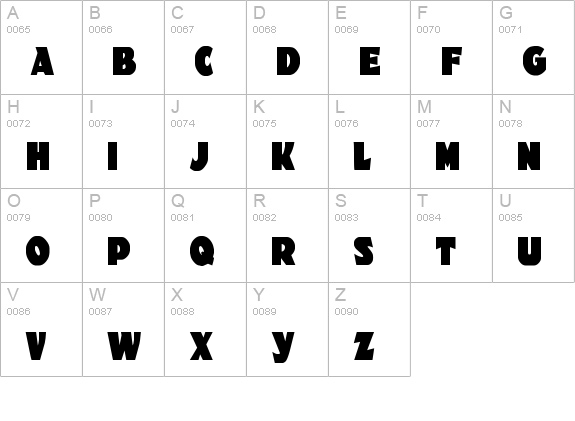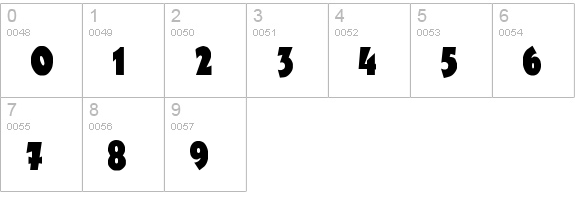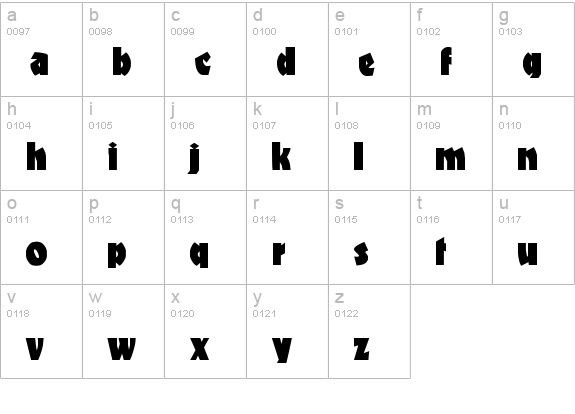
Dromon Font Details
Dromon font is a modern and sleek typeface that exudes elegance and sophistication. With its clean lines and sharp edges, Dromon is perfect for adding a touch of class to any design project. Whether you're creating a logo, branding materials, or a website, this font is sure to make a statement. The best part? Dromon font is completely free to download at FontsMarket.com. That's right, you can elevate your designs with this premium font without spending a dime. So why wait? Download Dromon font today and take your projects to the next level!